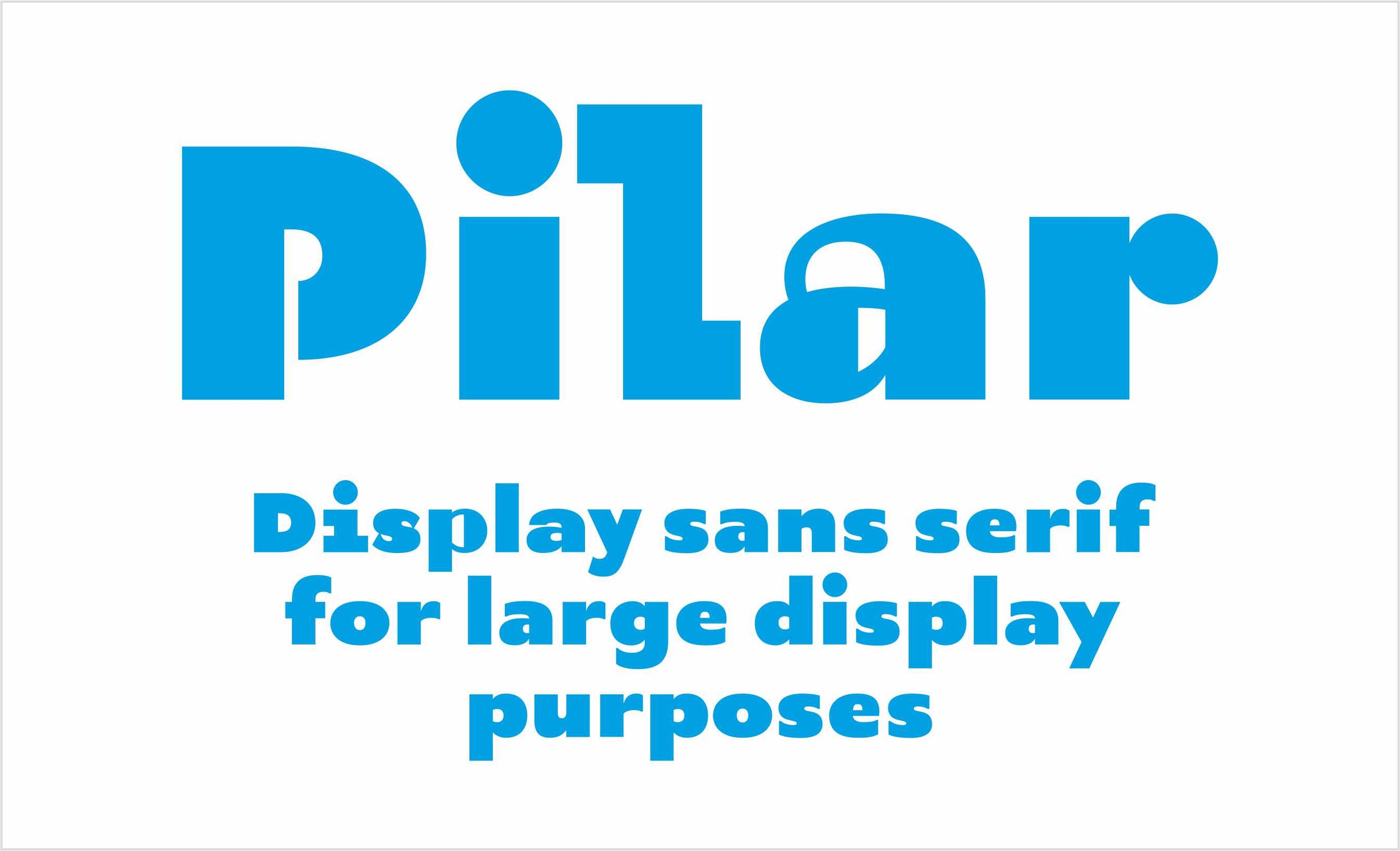
Pilar Pro Font
Pilar Pro Font is perfect for corporate branding, professional services logos, business presentation slides, annual report layouts, executive stationery, law firm marketing, financial institution signage, and sophisticated business communications.
What makes Pilar Pro Font exciting is its architectural strength that combines professional authority with elegant refinement. The font features solid letterforms with carefully balanced proportions and structural integrity that evoke stability, trustworthiness, and executive leadership. Its distinctive character construction and professional polish communicate competence, reliability, and institutional strength, making every message feel supported by foundational expertise and corporate excellence.
The Pilar Pro Font family includes regular weight with uppercase and lowercase letters, numerals, punctuation marks, and extensive special characters. Premium versions often feature multiple weights, italics, and professional alternates that provide comprehensive typographic solutions for complex corporate communications.
The commanding character of Pilar Pro Font makes it particularly valuable for Fortune 500 companies, professional service firms, and financial institutions. Its excellent readability across all business formats ensures important communications remain clear while maintaining the distinguished appearance that conveys corporate authority and institutional trust.
Business communication specialists appreciate how Pilar Pro Font effortlessly conveys professional competence and organizational strength. The font's architectural proportions and refined details create polished corporate materials that establish confidence with audiences seeking reliable business partnerships and professional expertise.
The versatile professionalism of this typeface extends to management consulting, investment banking, and executive recruitment where corporate credibility drives business success. Pilar Pro Font Free Download provides creative professionals with an essential tool for developing memorable, authority-driven designs that resonate with audiences who value leadership, institutional strength, and the foundational pillars of professional excellence in today's competitive business landscape.